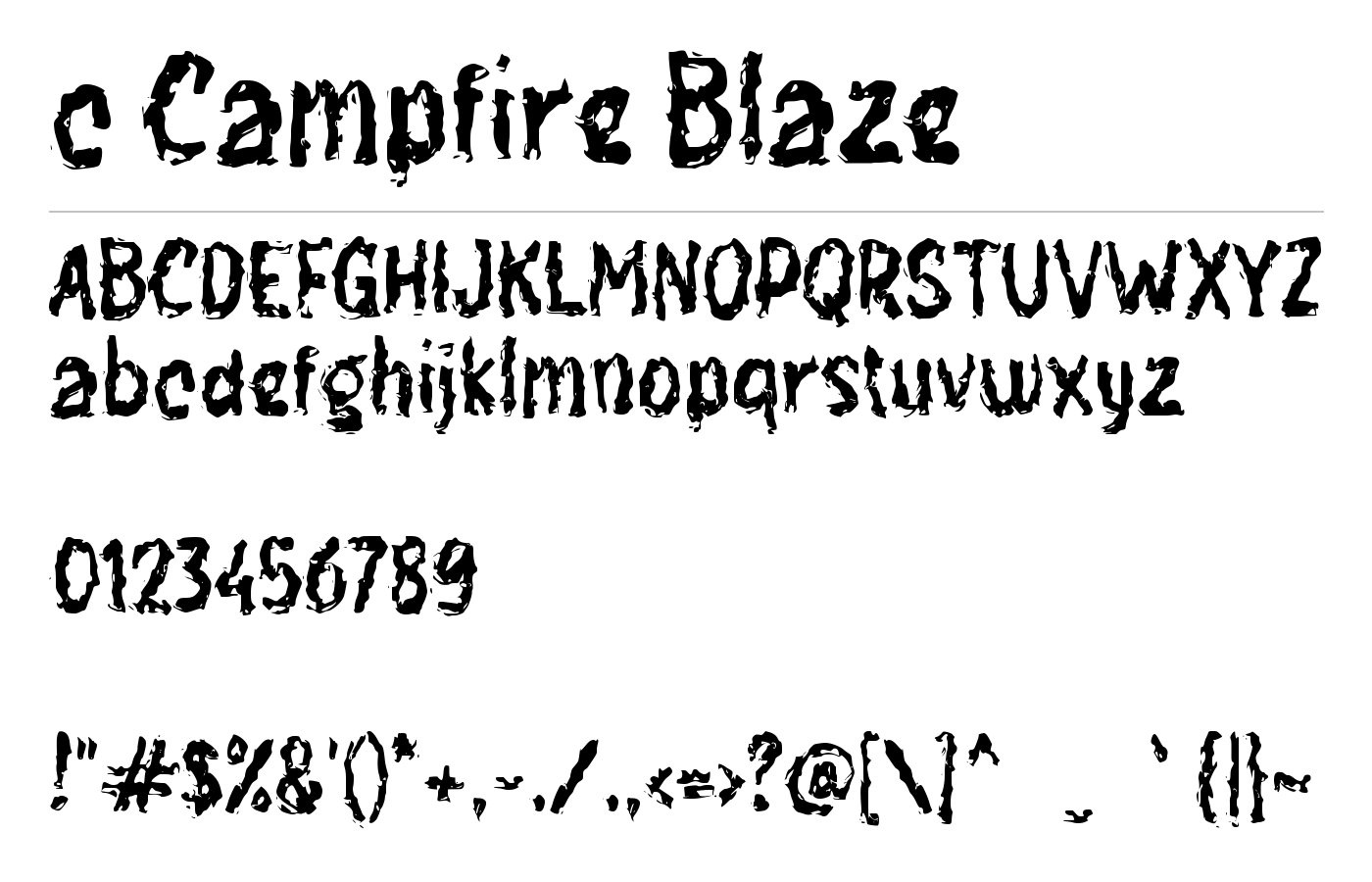
Campfire Blaze is a bold, distressed sans serif font with a rugged, textured look that evokes the flickering edges of fire. Its irregular, weathered letterforms give a sense of adventure and outdoorsy spirit, making it perfect for designs that want to convey energy, rustic charm, or a handcrafted feel. This font works great for posters, logos, and branding where a bold, eye-catching statement with a wild, natural vibe is needed.
c Campfire Blaze Font
About c Campfire Blaze Font